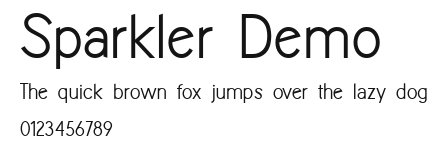
• Font Name: Sparkler-Demo
• Full Font Name: Sparkler-Demo
• Designer: Roland Huse
• Manufacturer: Roland Huse
About Sparkler-Demo.ttf
Sparkler-Demo.ttf is a modern, elegant sans-serif font designed for ultimate readability and visual harmony. Perfect for branding, headlines, web design, and print materials.